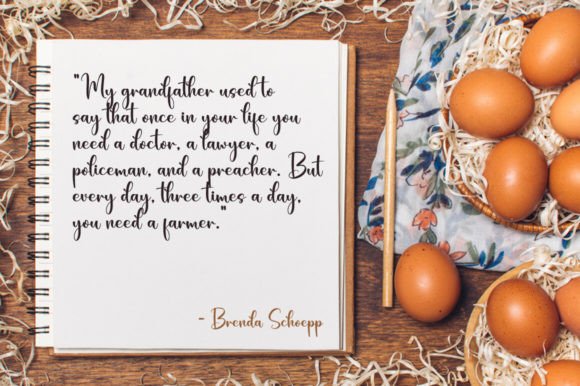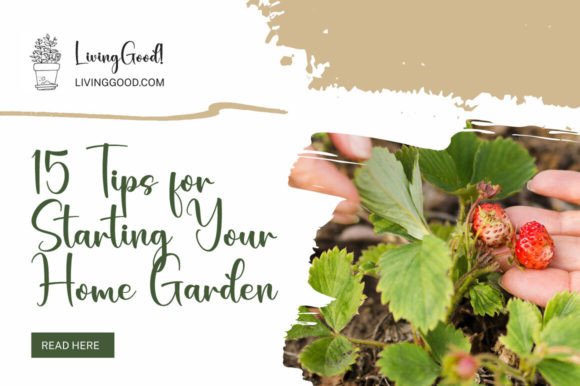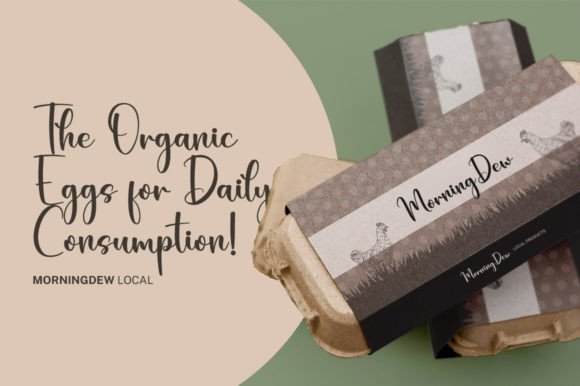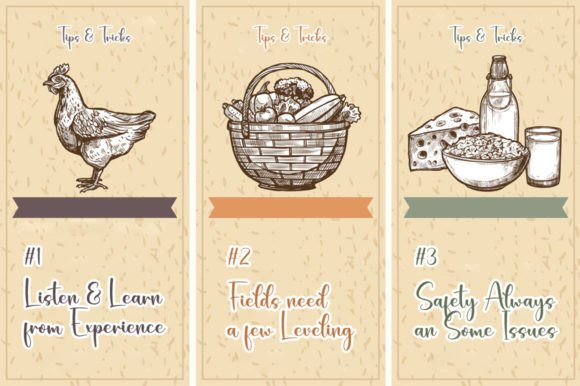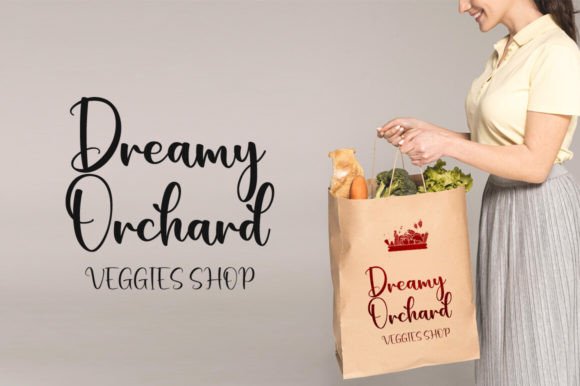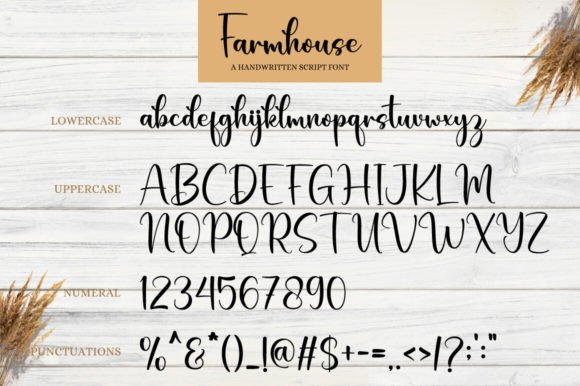
Discover the Charm of Farmhouse Font: A Timeless Handwritten Style
Are you a designer or crafter looking for a font that exudes warmth, coziness, and a touch of rustic charm? Look no further than the Farmhouse Font. This lovely and timeless handwritten font is perfect for creating eye-catching logos, branding, and quotes that capture the essence of a simpler, more nostalgic era.
Farmhouse Font is a beautiful, hand-crafted typeface that is reminiscent of traditional farmhouse signs, rustic woodcut letters, and vintage advertisements. Its unique, handwritten style is characterized by gentle curves, subtle imperfections, and a warm, inviting feel that makes it perfect for a wide range of design applications.
- Handwritten style: Farmhouse Font is a true handwritten font, crafted with love and care to capture the imperfections and uniqueness of human handwriting.
- Timeless appeal: Unlike trendy fonts that quickly go out of style, Farmhouse Font has a timeless quality that ensures your designs will remain stylish and relevant for years to come.
- Versatile: This font is perfect for a wide range of design applications, from logos and branding to quotes, posters, and social media graphics.
- Easily readable: Despite its handwritten nature, Farmhouse Font is surprisingly easy to read, making it perfect for longer texts and quotes.
Why Choose Farmhouse Font?
So why should you choose Farmhouse Font for your next design project? Here are just a few compelling reasons:
- Unique and distinctive: Farmhouse Font is a one-of-a-kind typeface that will help your designs stand out from the crowd and establish a strong brand identity.
- Emotional connection: The warm, nostalgic feel of Farmhouse Font creates an instant emotional connection with your audience, making your designs more relatable and engaging.
Design Applications for Farmhouse Font
Farmhouse Font is an incredibly versatile typeface that can be used in a wide range of design applications, including:
- Logos and branding: Create a unique and memorable logo that captures the essence of your brand and establishes a strong visual identity.
- Quotes and posters: Add a touch of rustic charm to your quotes and posters with Farmhouse Font, perfect for social media graphics, printables, and more.
- Stationery and invitations: Add a personal touch to your stationery, invitations, and greeting cards with Farmhouse Font, perfect for weddings, birthdays, and other special occasions.
- Use it sparingly: Farmhouse Font is a bold and eye-catching typeface, so use it sparingly to avoid overwhelming your design.
- Experiment with colors: Farmhouse Font looks great in a range of colors, from earthy tones to bright and bold hues.
- Pair it with other fonts: Farmhouse Font pairs beautifully with other fonts, such as serif and sans-serif typefaces, to create a unique and visually appealing design.
In conclusion, Farmhouse Font is a timeless and charming handwritten typeface that is perfect for designers and crafters looking to add a touch of rustic charm to their designs. With its unique style, versatile applications, and emotional appeal, Farmhouse Font is sure to become a favorite in your design toolkit.